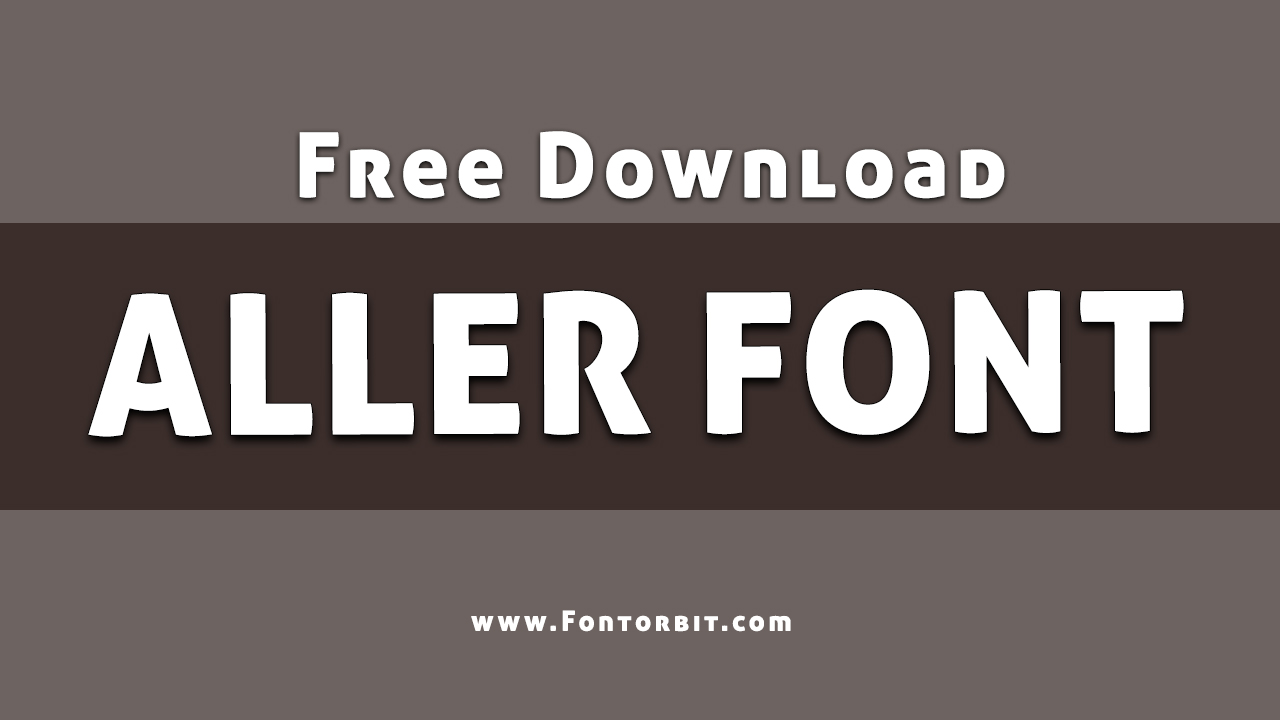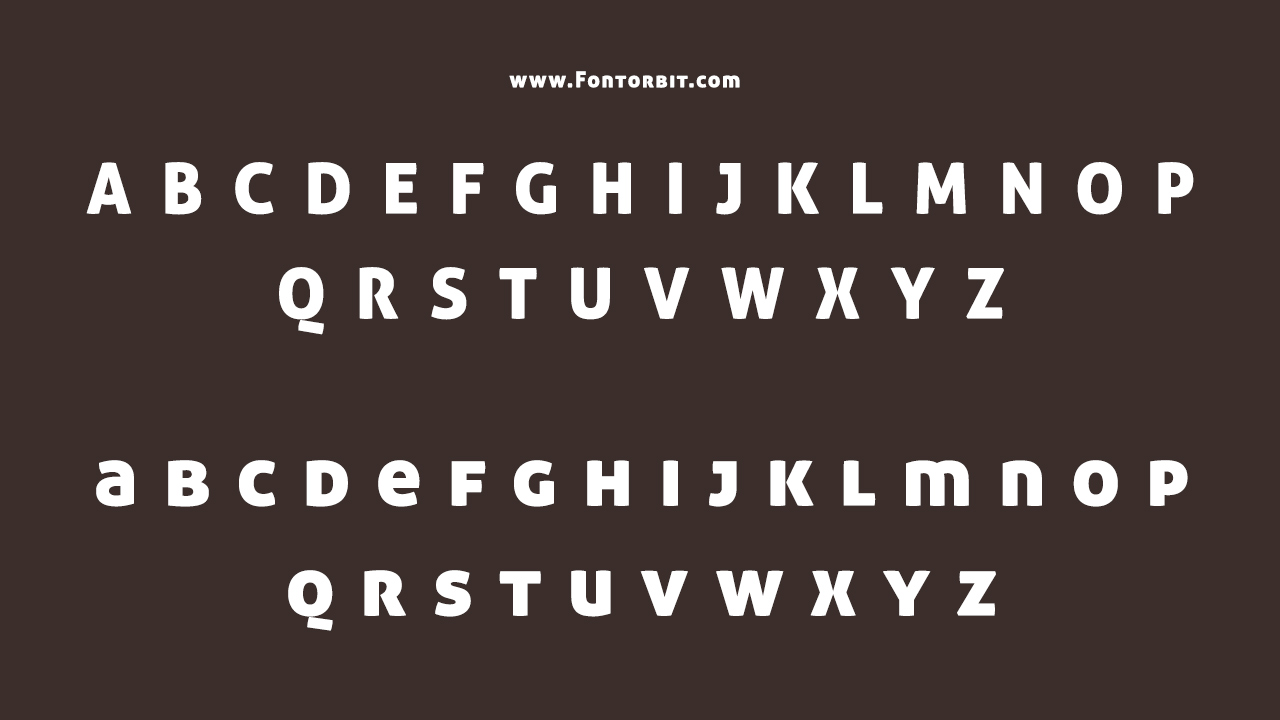
The Aller Sans Serif Font Family was released in 2008 by the Danish School of Media and Journalism with support from the publisher Aller. The font designer is Dalton Maag Ltd. Following its launch, the font became freely accessible to organizations, allowing up to 25 users at once through the DSMJ website.
Aller Font Family Includes
- Aller Italic
- Aller Bold
- Aller Bold Italic
- Aller Light
- Aller Light Italic
- Aller Display
Notable Uses
Aller Font stands out due to its versatility and adaptability, making it a popular choice for a variety of design projects. Some of its notable uses include:
- Corporate Branding
- Digital Interfaces
- Print Media
- Marketing Materials
- Product Design
The Aller Font perfectly blends modern design, versatility, and functionality. Its clean lines and adaptable styles make it a go-to choice for designers working on digital or print projects.
Whether you’re creating logos, websites, or advertisements, Aller can deliver the professional look you need. With its free standard edition, designers can easily experiment with it across different mediums, ensuring Aller remains relevant in a rapidly evolving design landscape.
Designers appreciate Aller’s versatility, readability, and modern look, making it ideal for print and digital projects.
Magazines, brochures, and editorial layouts frequently use Aller for its clean and sophisticated look.
Aller was designed in 2008 by Dalton Maag.
Fonts like Open Sans and Roboto offer a similar clean and geometric appearance.
Aller offers Light, Regular, Bold, and Italic styles, making it versatile for various design needs.